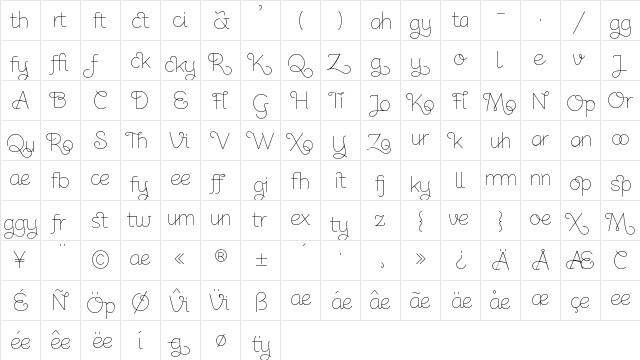
Kushtie Ligatures Light Ligatures
| Foundry | HeadFirst Design |
| Designer | Morice Kastoun |
Design Context for Kushtie Ligatures Typeface
Kushtie Ligatures is a composed and adaptable typeface that performs quietly and consistently across a wide range of design contexts. Its slender proportions lend an understated elegance to any composition.